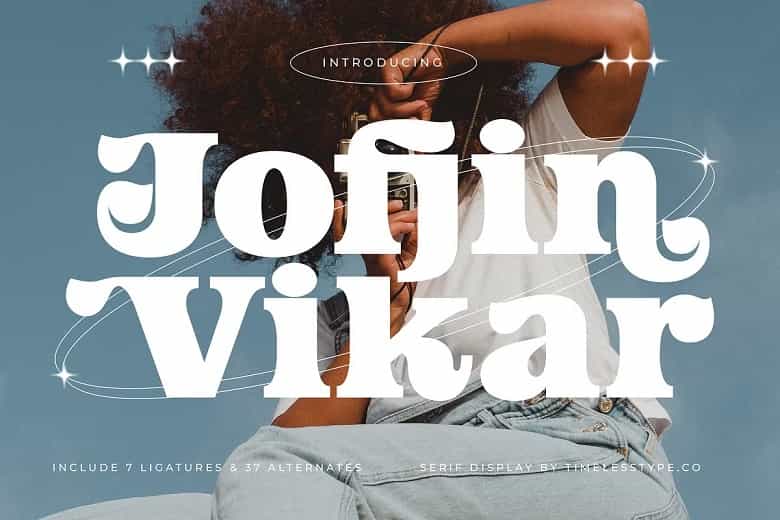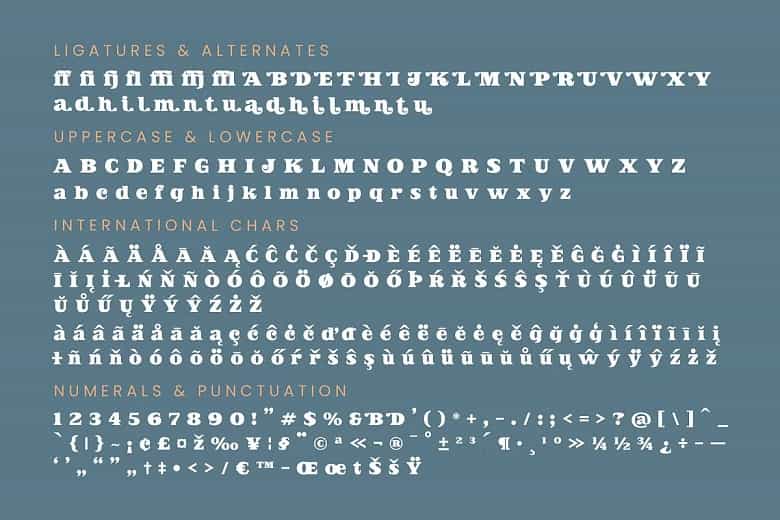
Jofjin Vikar – new modern display serif font from Timeless type. Co, Suitable for any projects such as: logos, branding projects, homeware designs, product packaging, mugs, quotes, posters, shopping bags, t-shirts, book covers, name card, invitation cards, greeting cards, label, photography, watermark, special events, and all your other luxury and beautiful projects that need a luxury serif touch.